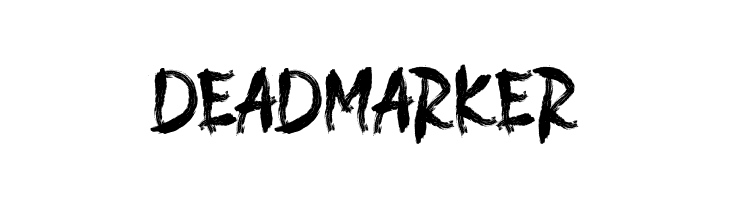
A bold, brushstroke-style font with a dynamic and expressive appearance.
A bold, brushstroke font with a dynamic and energetic style.
A bold, brushstroke-style font with a raw, energetic appearance.
A bold, brushstroke-style font with dynamic and expressive characters.
A bold, brushstroke font with a textured, hand-painted look.
A bold, brushstroke-style font with dynamic and artistic flair.
A bold, brushstroke font with dynamic, artistic flair.
A bold, brushstroke font with an expressive, hand-drawn style.
A hand-drawn, brushstroke font with a casual and artistic style.
A bold, brushstroke-style font with an energetic and artistic flair.